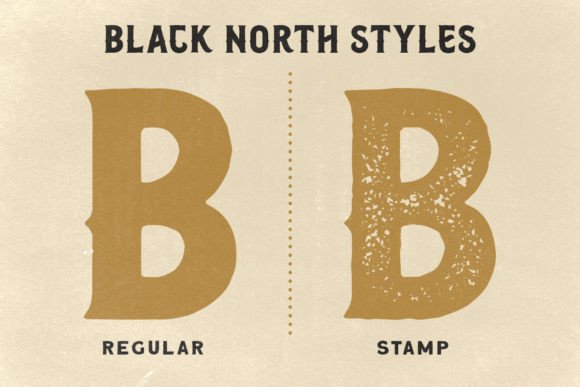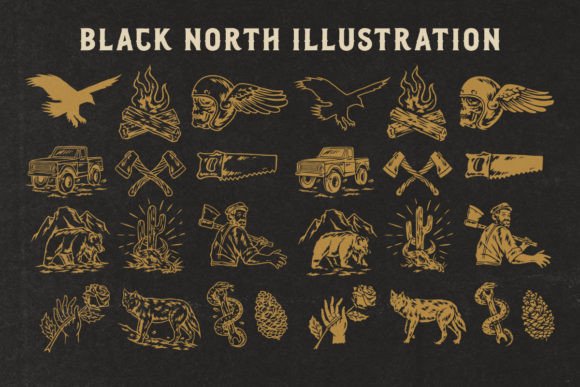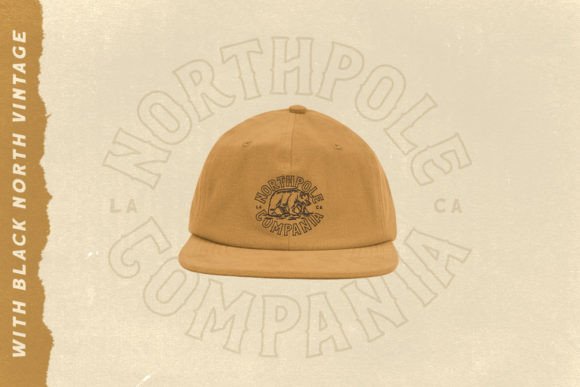
Black North Font
Black North feels playfully nostalgic and delivers an incredible vintage aesthetic. Use this stylish display font to add that special retro touch to any design idea you can think of!